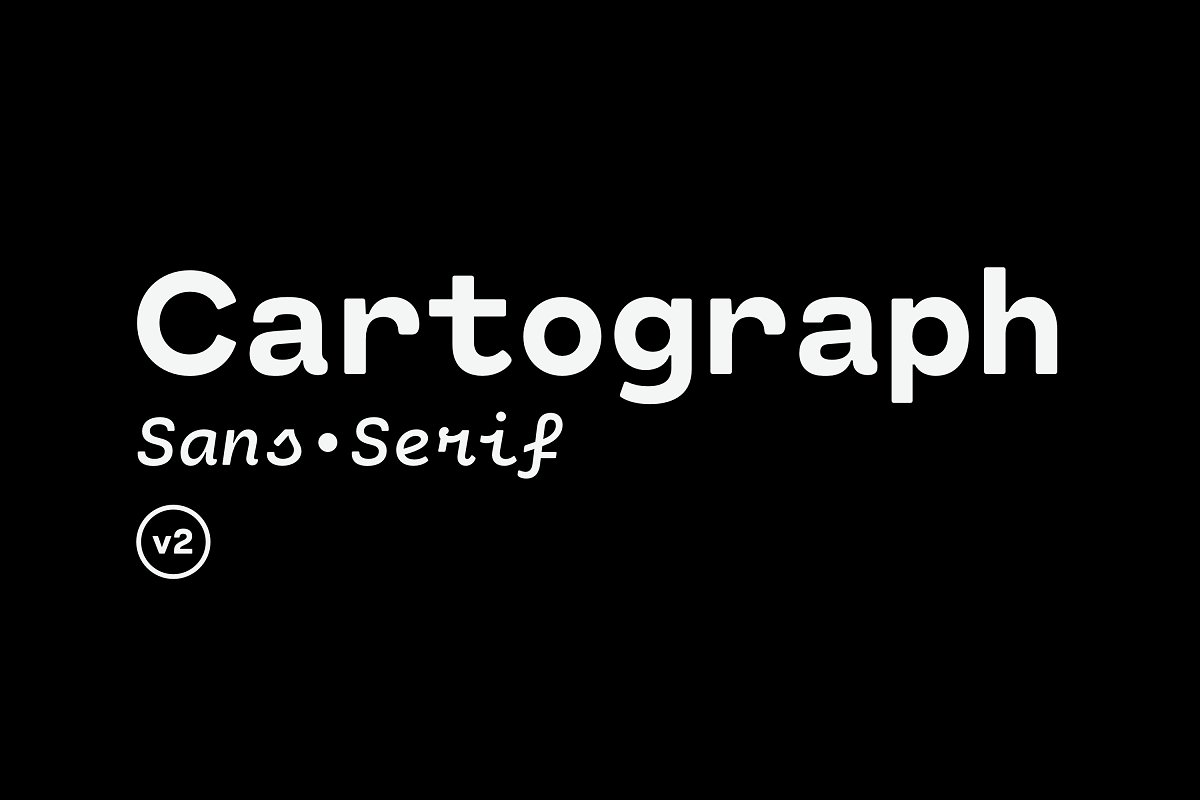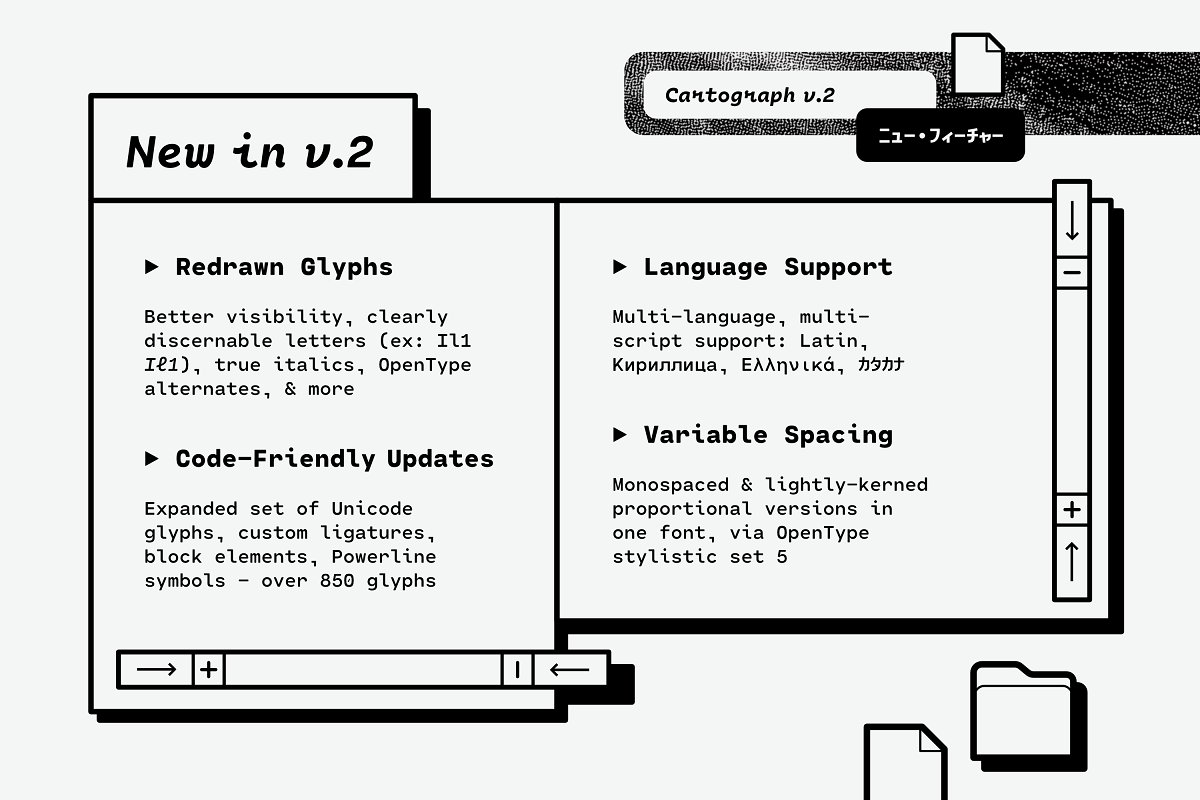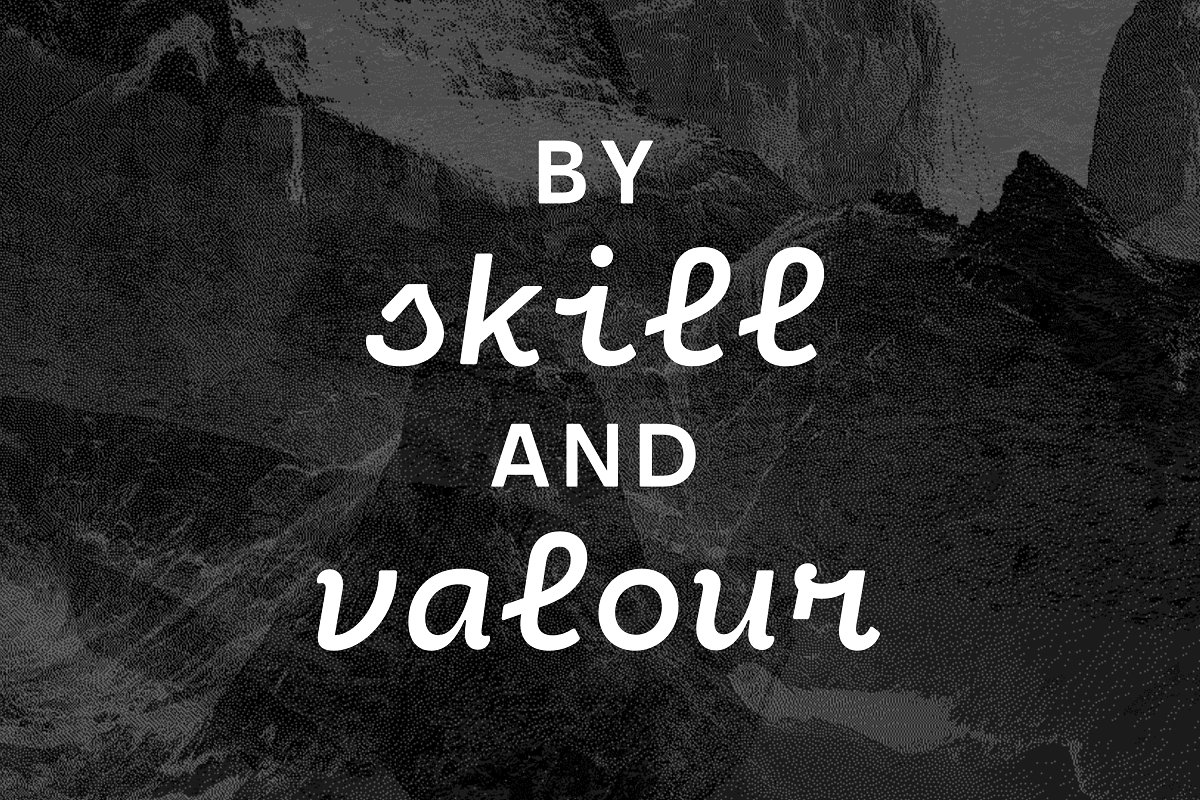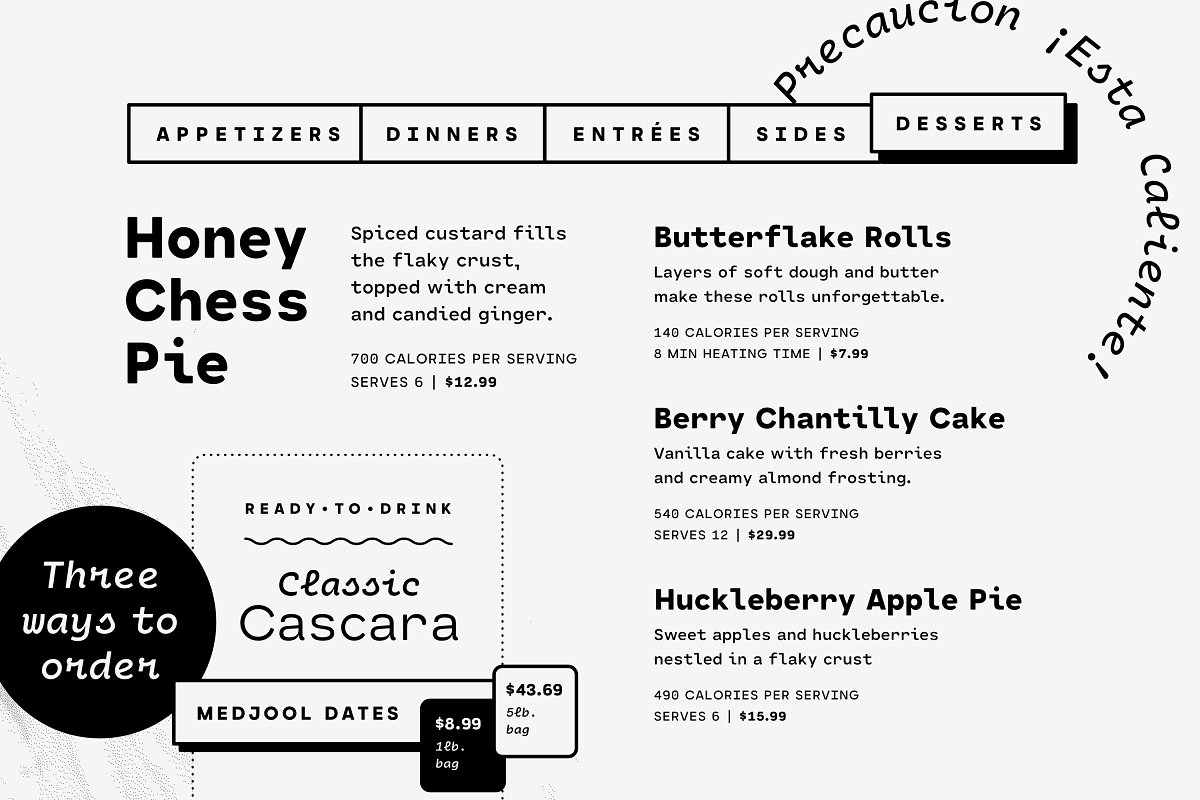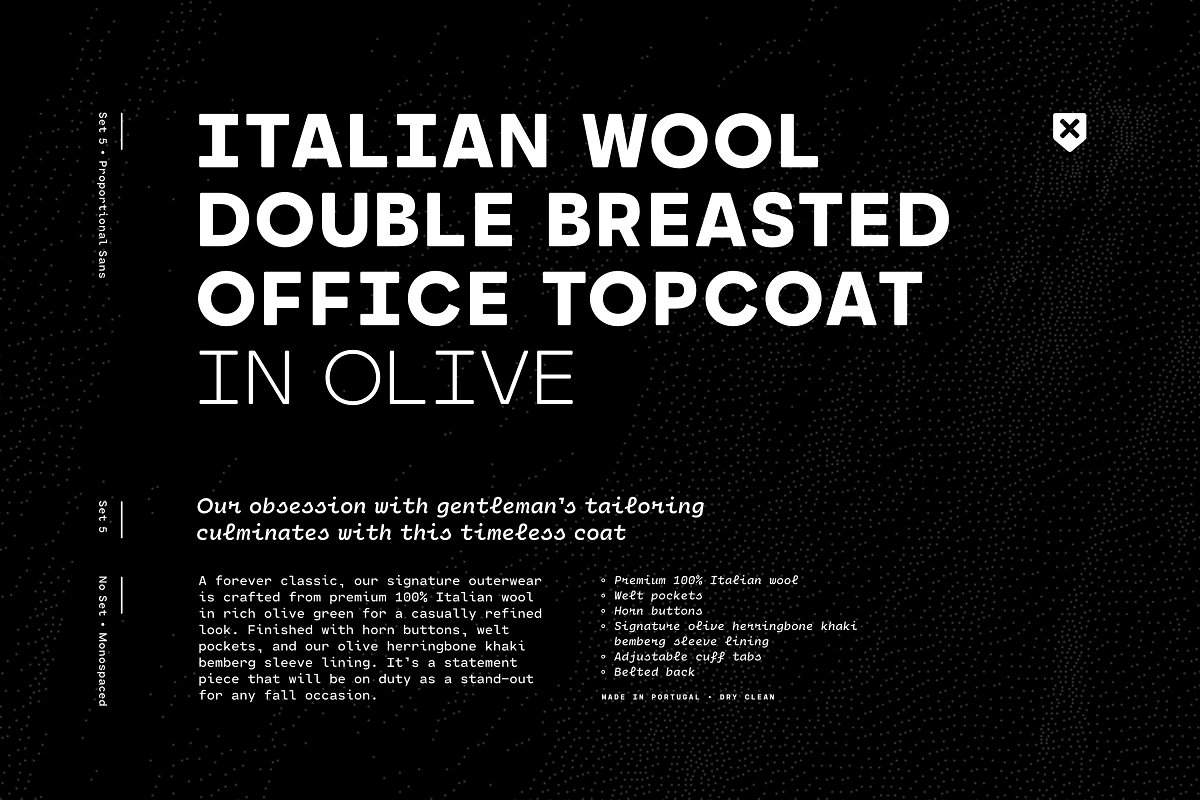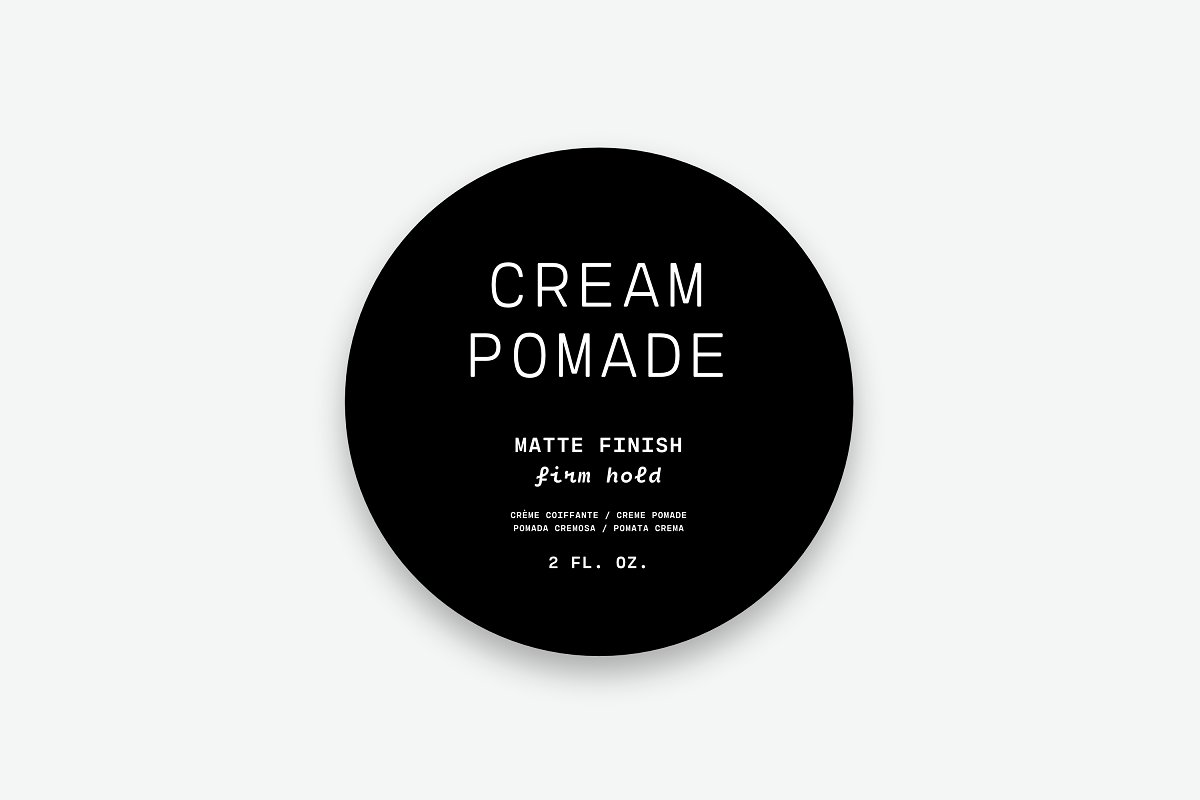
About the Cartograph CF warm monospace Font
A monospaced typeface with character and warmth, Cartograph© CF is a handsome font family featuring a lush, cursive italic, code-friendly ligatures, and a proportional set accessible via OpenType, A tribute to the utilitarian beauty of terminals and typewriters, Cartograph excels in both code and prose, Version 2 includes redrawn glyphs for better legibility, expressive new italics, an expanded set of glyphs, custom code-friendly ligatures, Greek and Katakana support, and much more
Cartograph Sans has been rolled into the main font file, and is now accessible via OpenType Stylistic Set 05, Eight weights and true italicsMono and proportional setsLatin, Cyrillic, Greek, and Katakana script supportNearly 850 glyphs, including coding symbolsFree updates and feature additionsIf you have any questions about licensing, need help with a typeface, or would like to request a new feature, contact me at connary